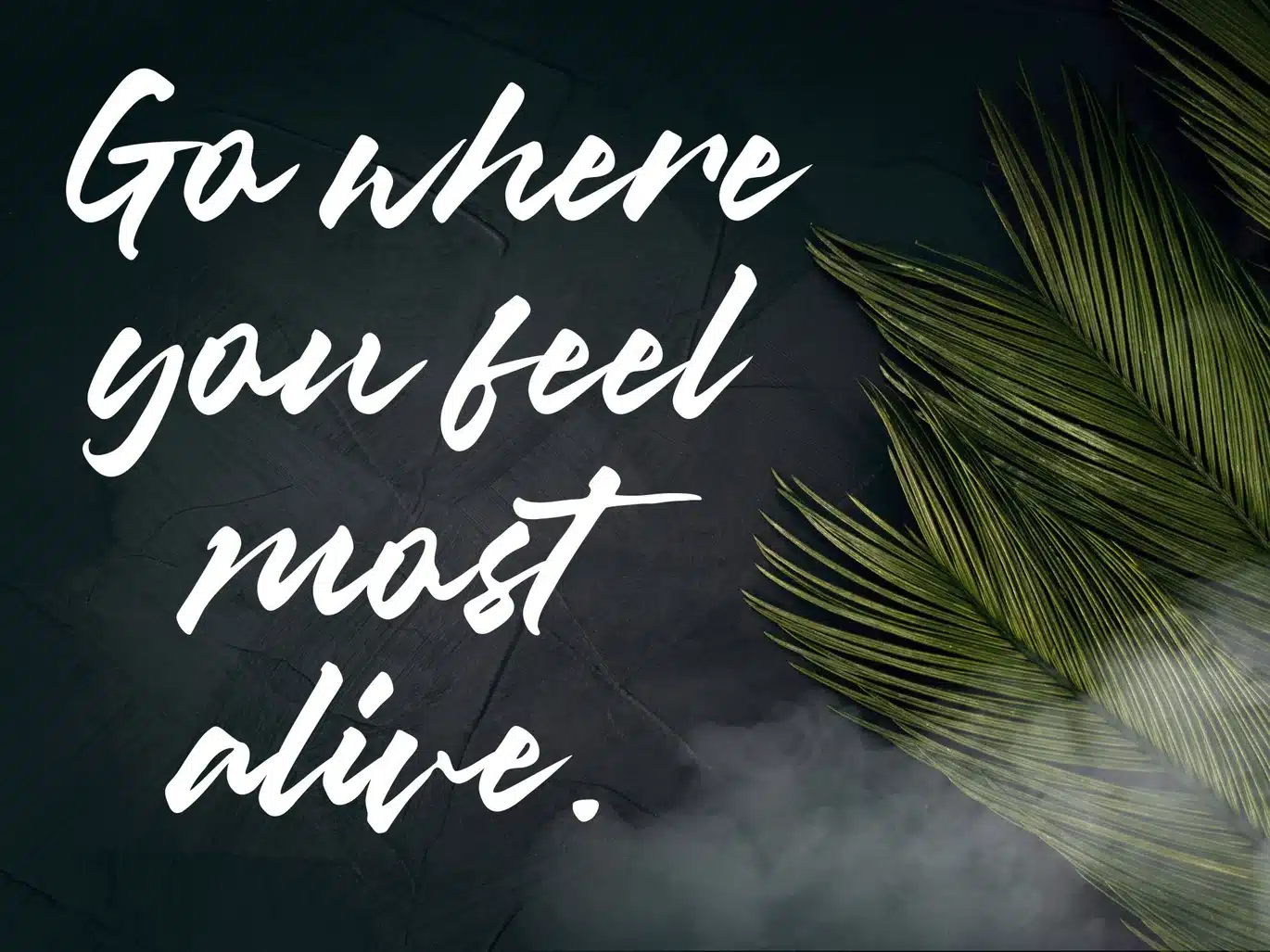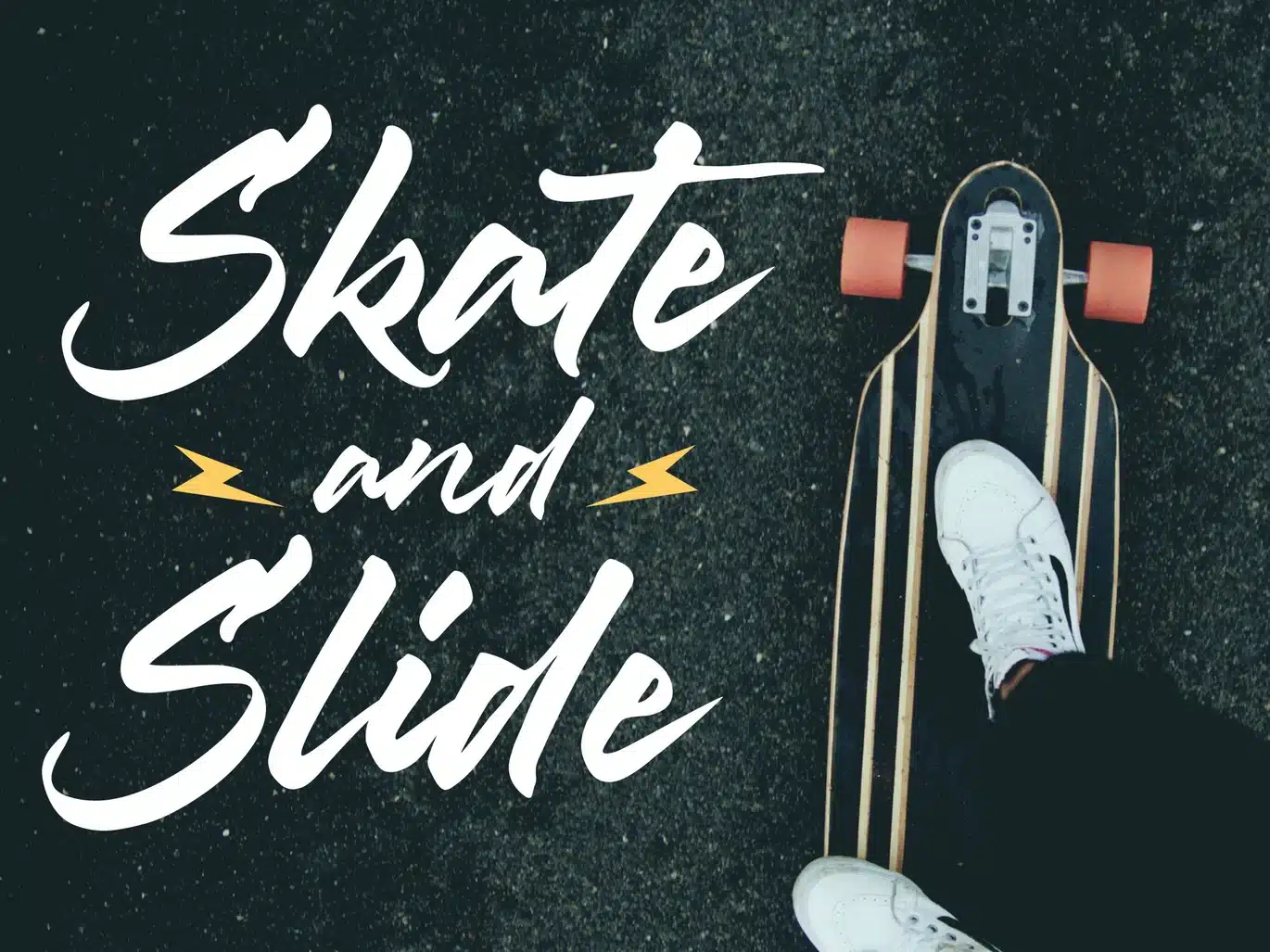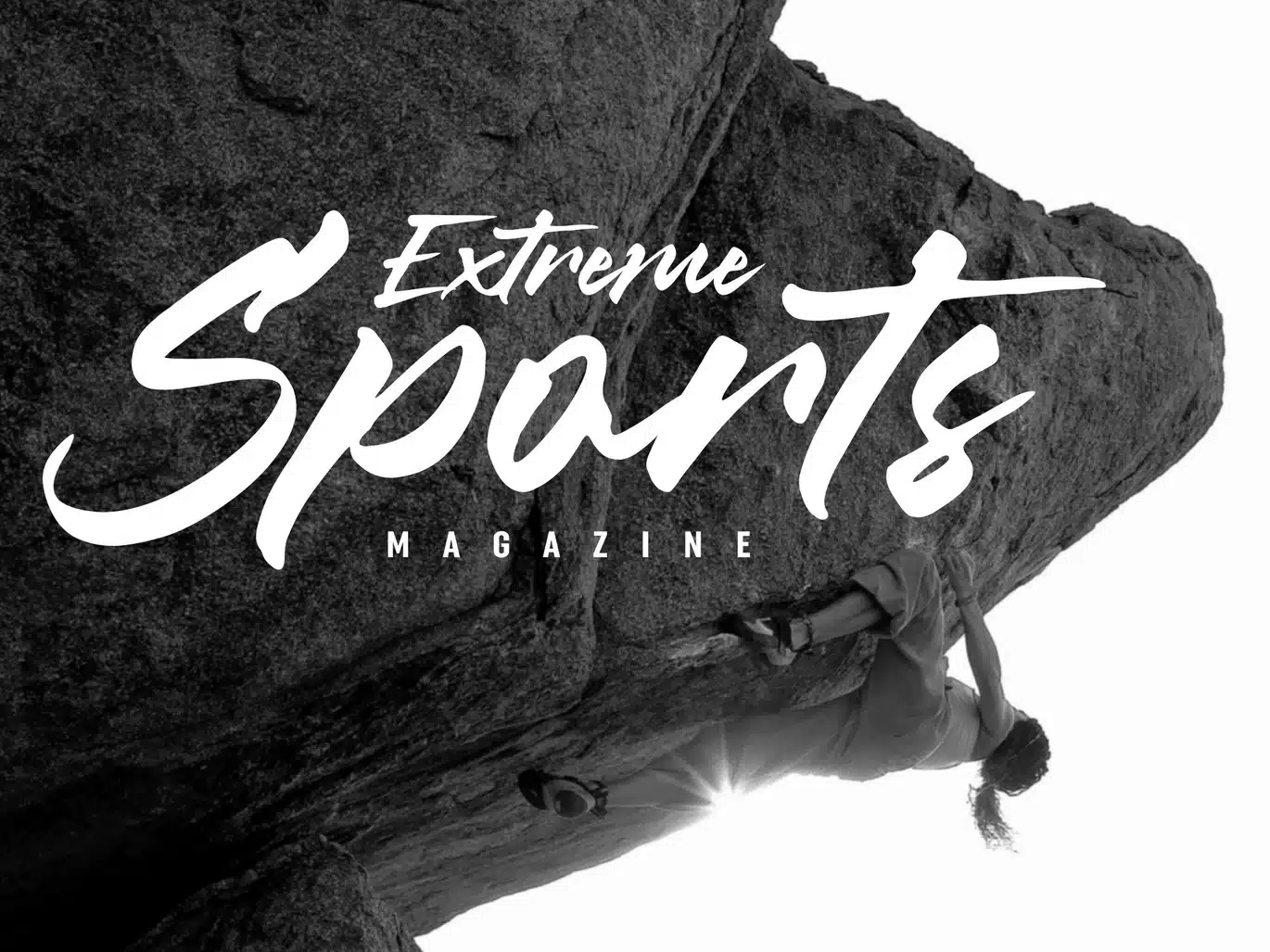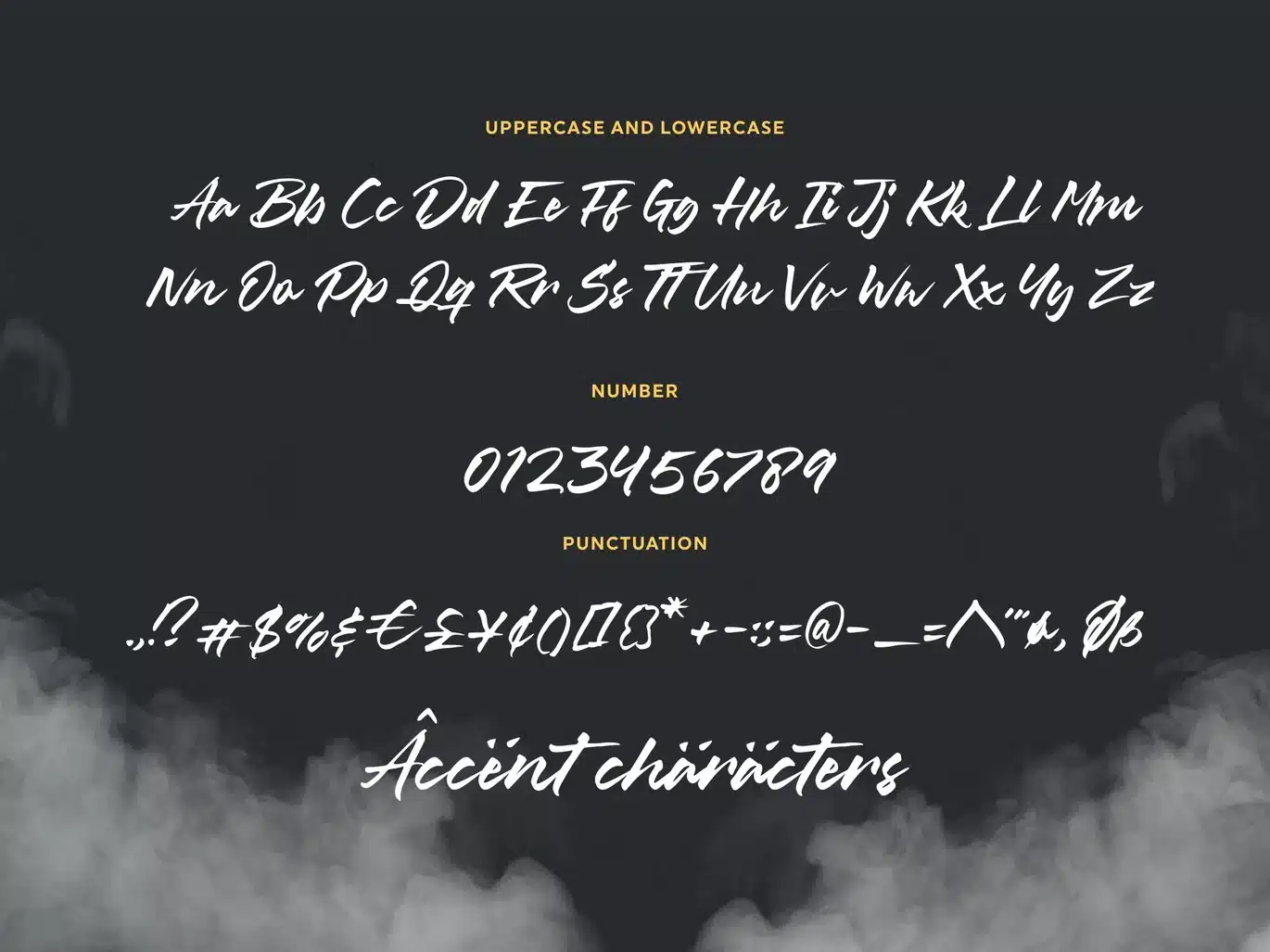
Misty Black – Stylish Bold Logo Font
Proudly Present, Misty Black Font.
Misty Black is a Stylish Bold Script Font.
Misty Black is perfect for product packaging, branding project, megazine, social media, wedding, or just used to express words above the background.